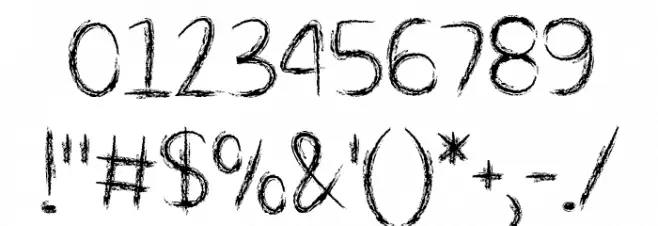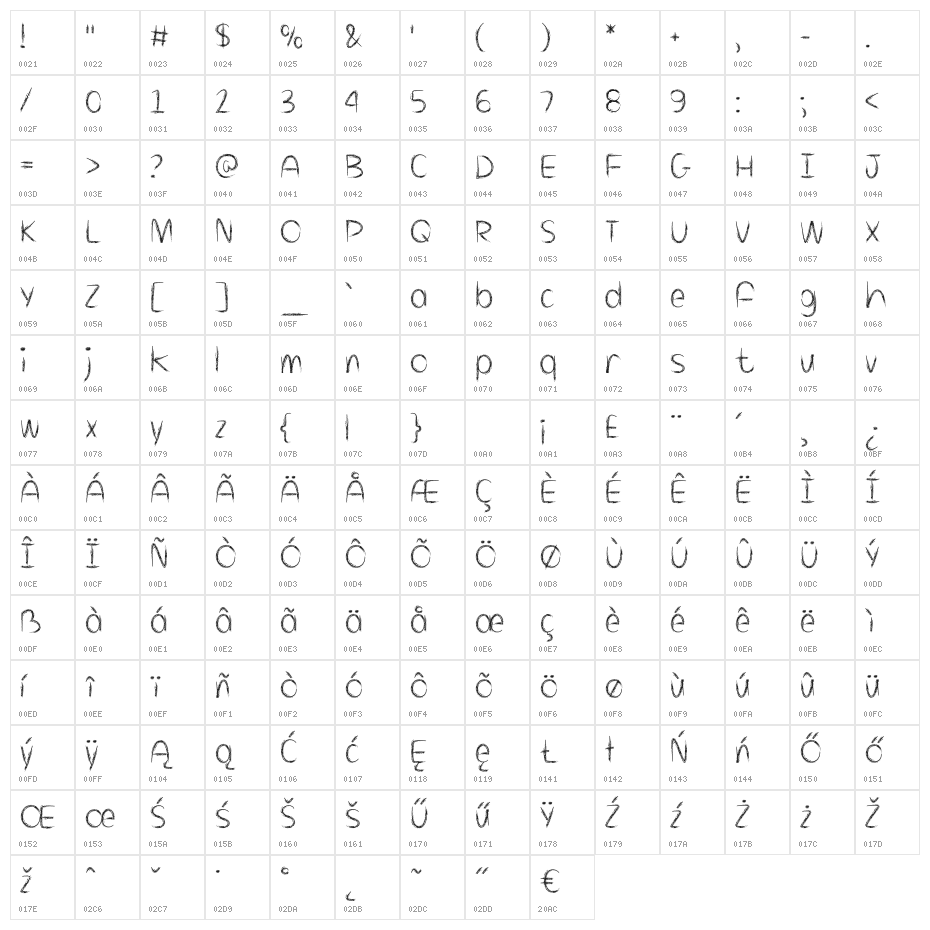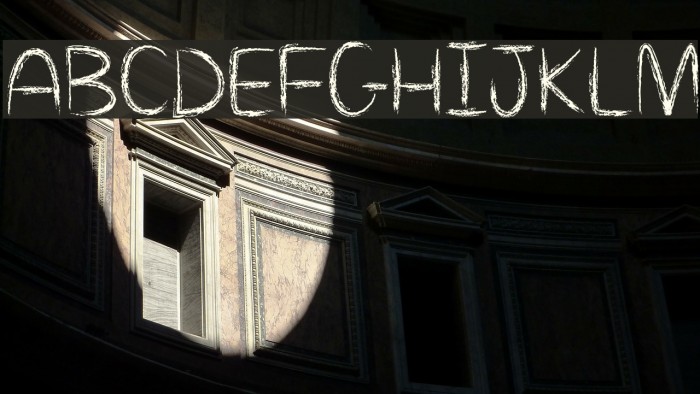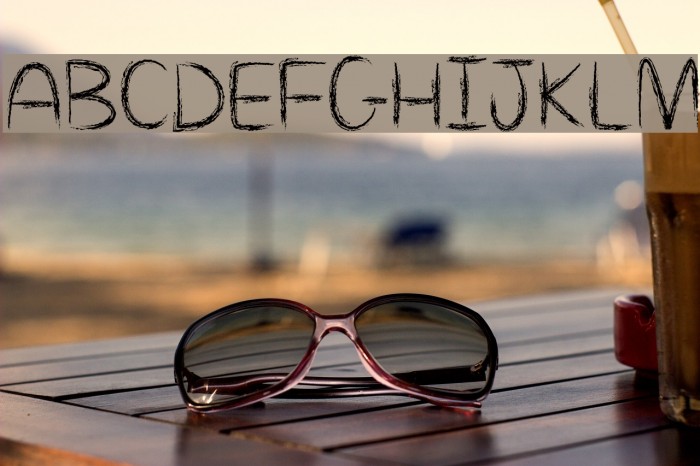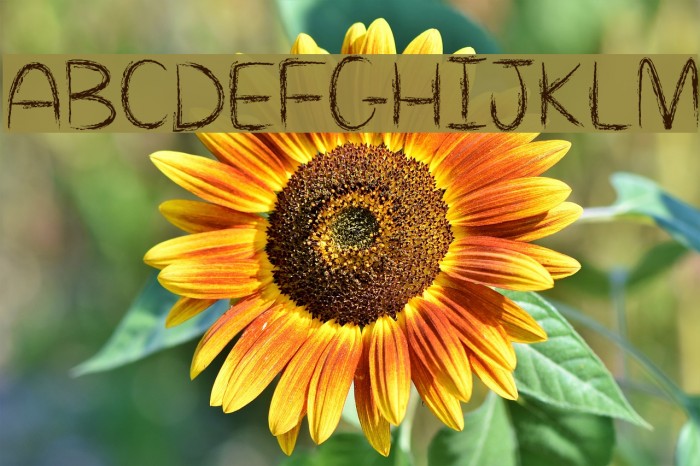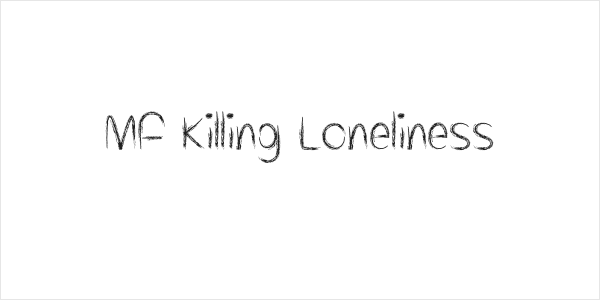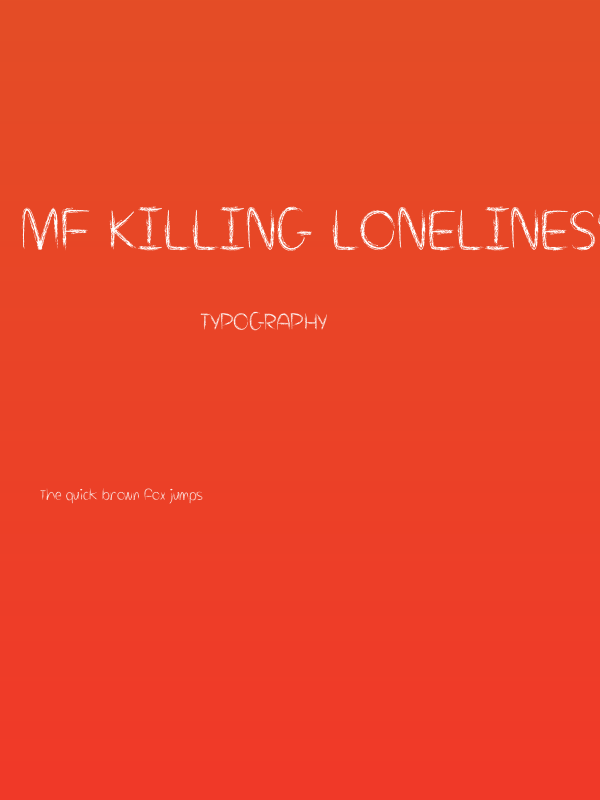
Mf Killing Loneliness Font
Mf Killing Loneliness Description
This font features a rough, textured appearance reminiscent of hand-drawn or sketched letters. Each character is uniquely distressed, giving it a raw and edgy feel. The strokes are uneven, with a scratchy texture that adds a sense of dynamism and movement. This style is particularly effective for creating a sense of urgency or emotion, making it ideal for projects that require a bold, artistic statement. The font maintains legibility despite its distressed nature, with clear distinctions between each letter and number. Its unique style makes it stand out, perfect for grabbing attention.
| Proposed Projects | Album covers, posters, artistic branding, edgy advertisements, and creative social media graphics. |